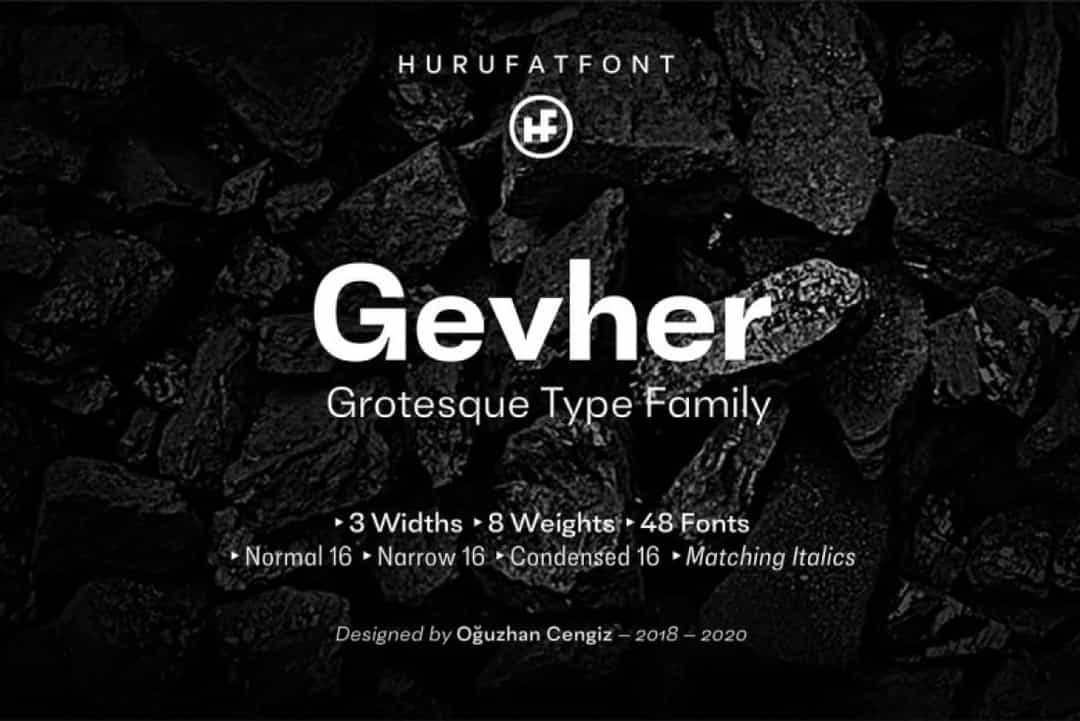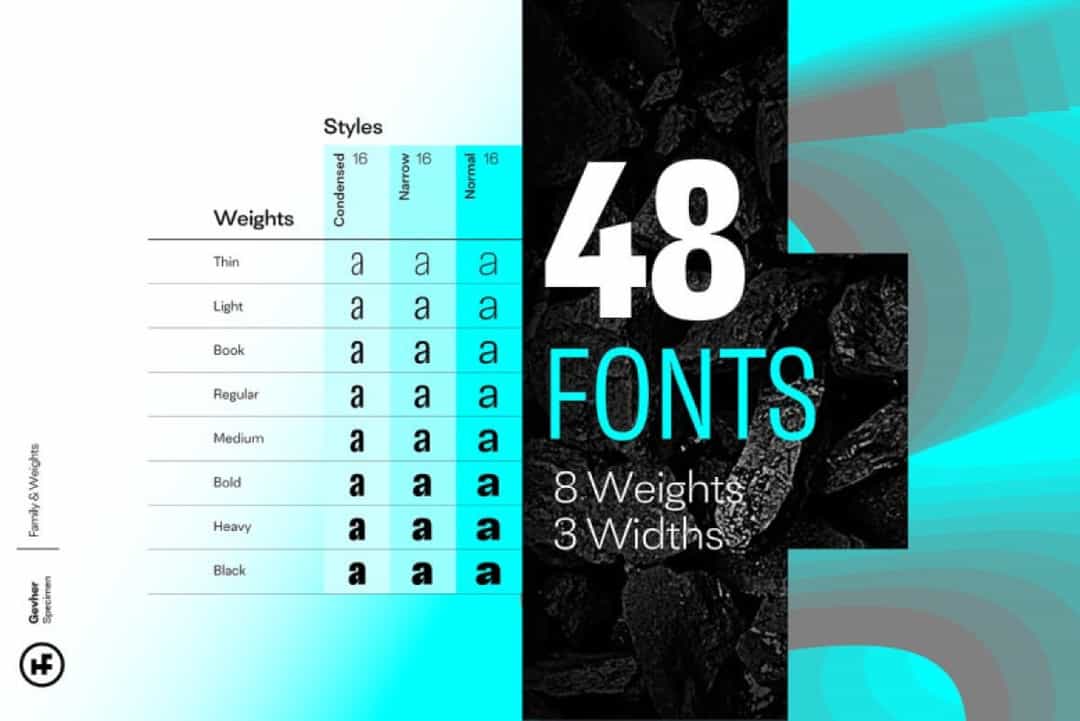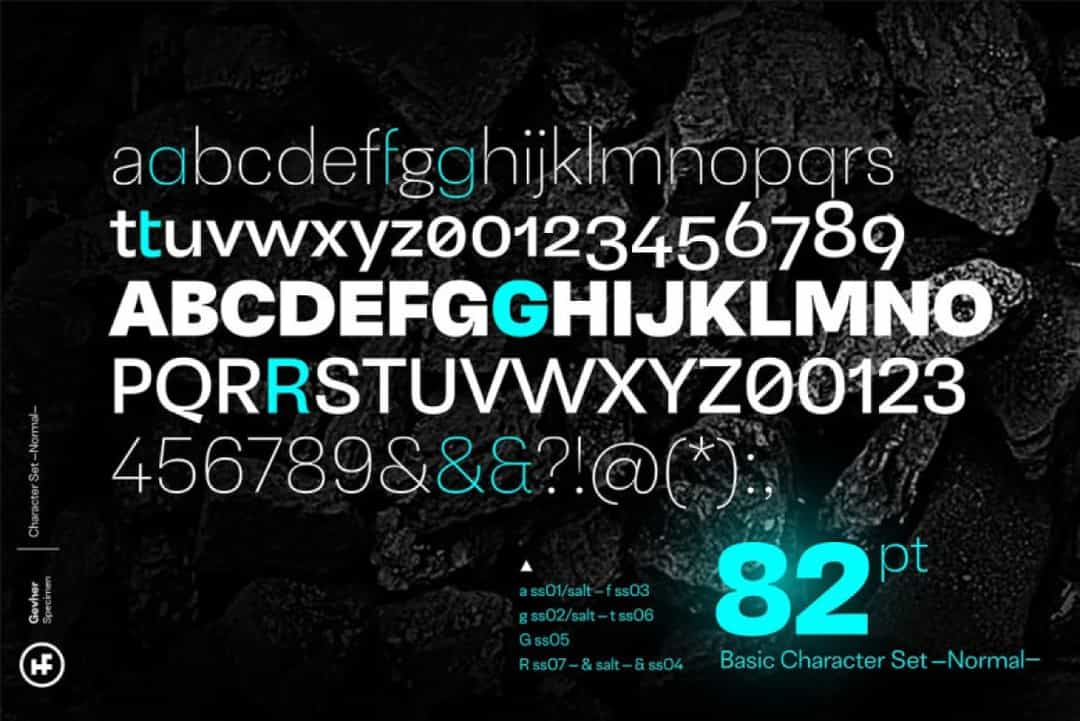
Gevher is a two-year labor of love; an extensive series of drawings that has gone into its creation. What sets Gevher apart from its peers is its soft angular twists which soften into rounder forms and its unique ink traps. Additionally, its solid structure features deep ink traps with unusual angles at joints for an appealing humane aesthetic.